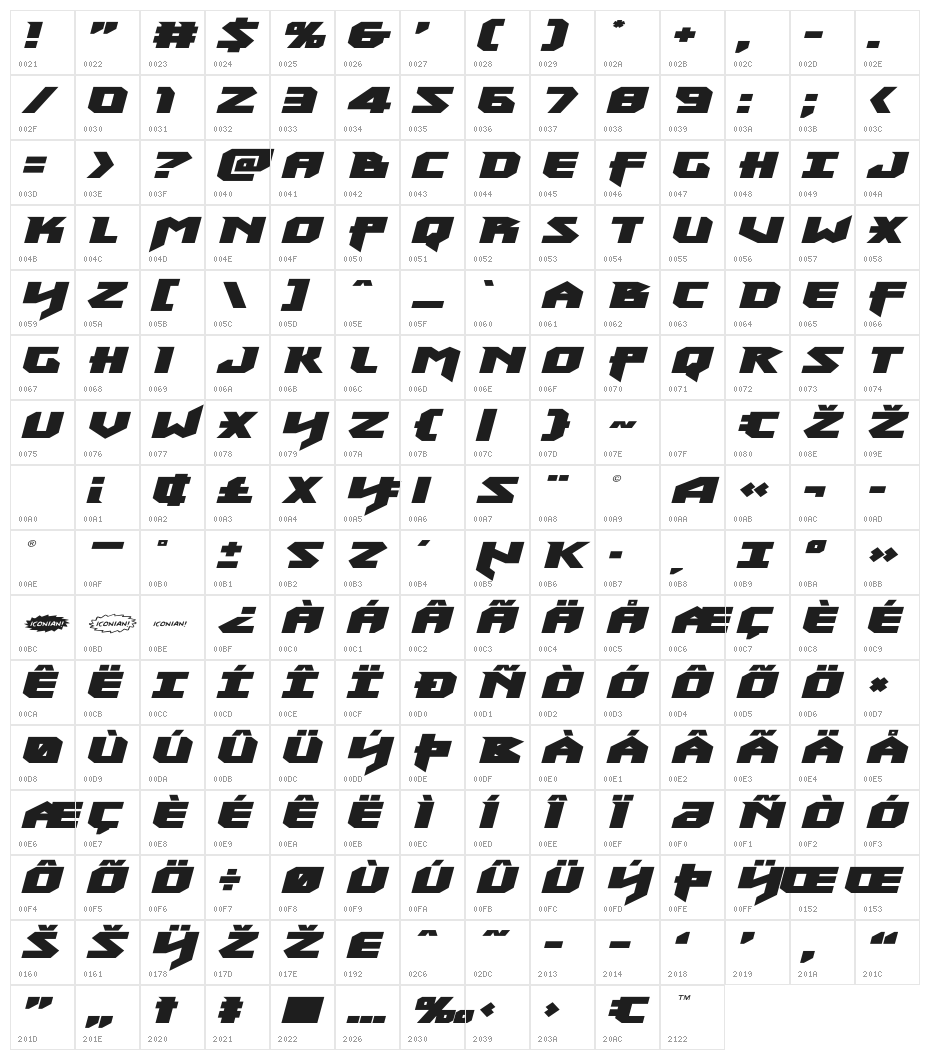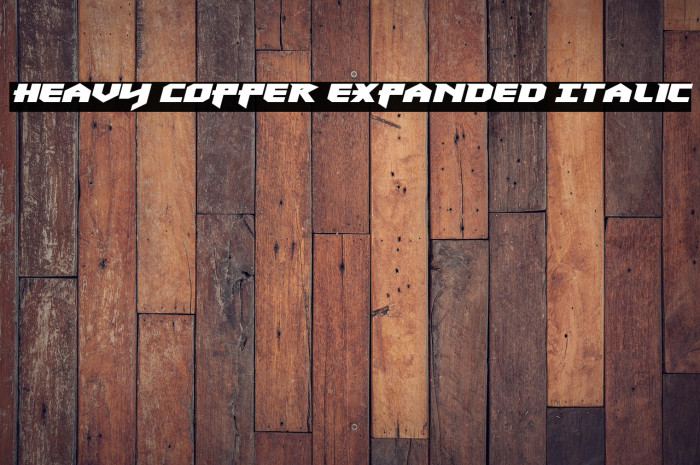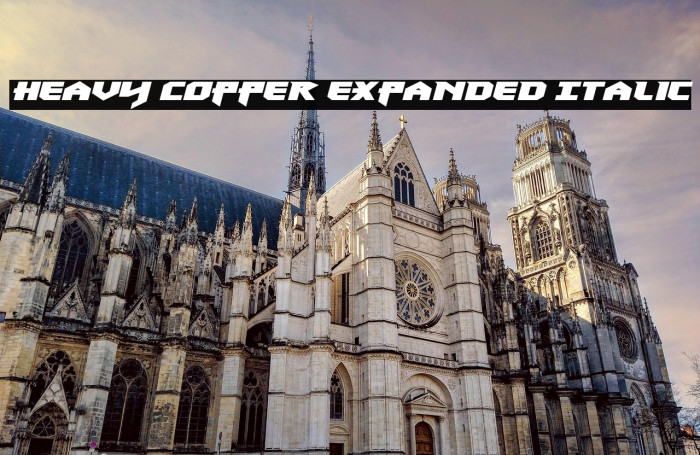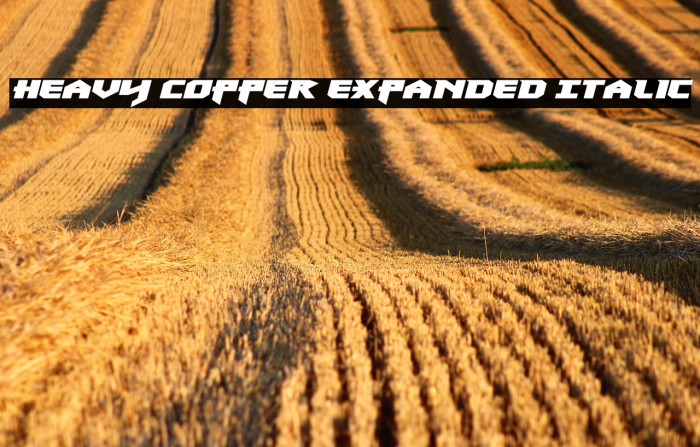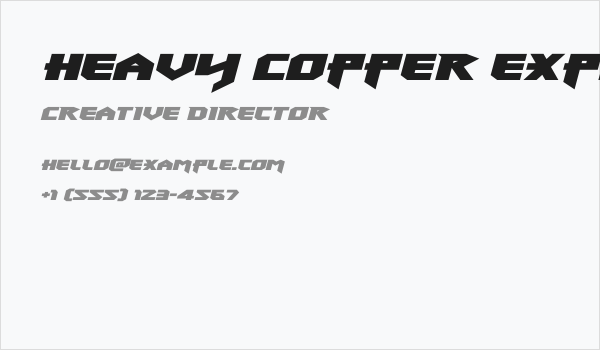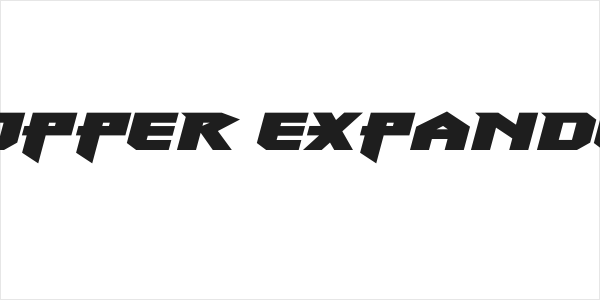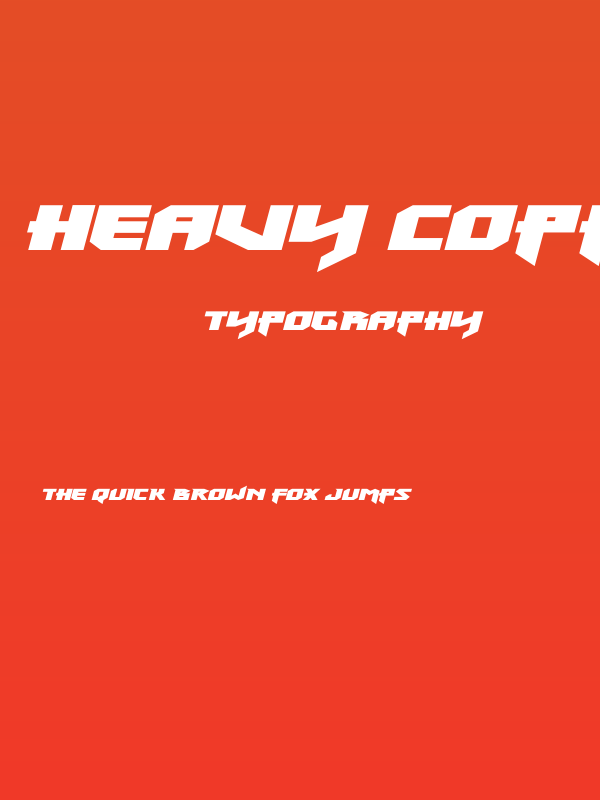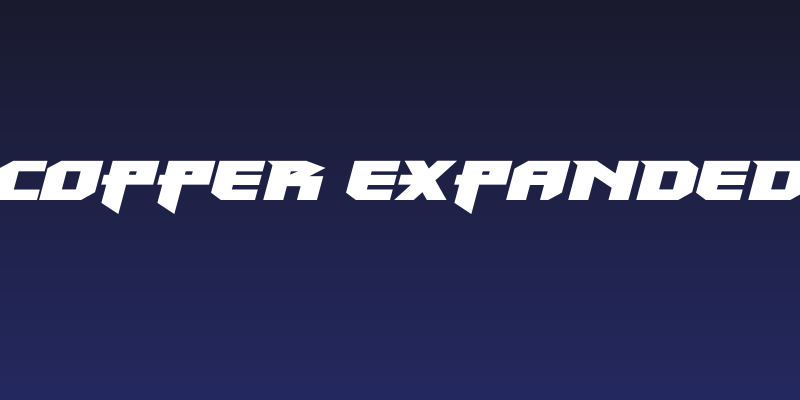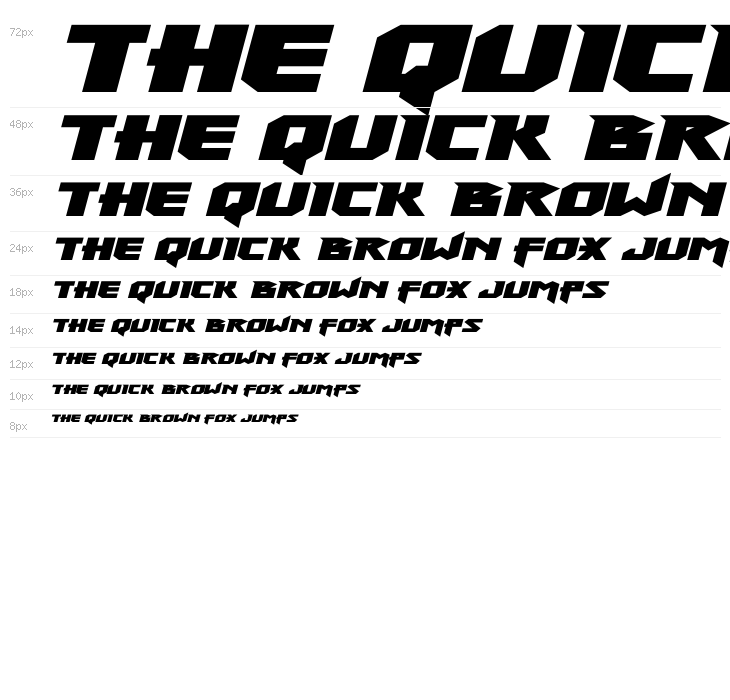
Heavy Copper Expanded Italic Font
Heavy Copper Expanded Italic Description
This font features a bold and striking design with a distinctly angular and geometric style. The characters are heavily stylized with sharp edges and a forward-leaning italic slant, giving it a dynamic and aggressive appearance. The expanded width of the letters enhances its boldness, making it stand out prominently in any design. The uppercase and lowercase letters maintain a consistent style, while the numerals and special characters are equally bold and angular, ensuring uniformity across all text. This font is ideal for projects that require a strong visual impact.
| Proposed Projects | Suitable for sports branding, action movie posters, video game titles, and dynamic advertising campaigns. |